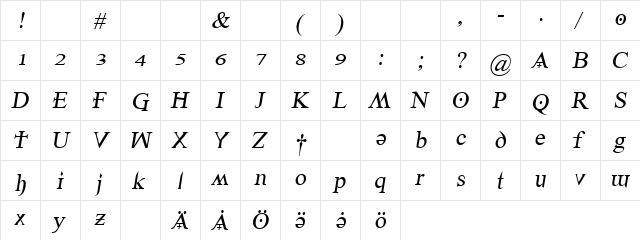
Denial2RegularItalics Regular
Design Context for Denial2RegularItalics Typeface
Denial2RegularItalics is a composed and adaptable typeface that performs quietly and consistently across a wide range of design contexts. Its italic angle brings a sense of urgency and motion to the letterforms.
Pro Tip: Try Denial2RegularItalics for annotation and caption copy alongside an upright companion — the contrast in angle creates a dynamic but ordered typographic system.